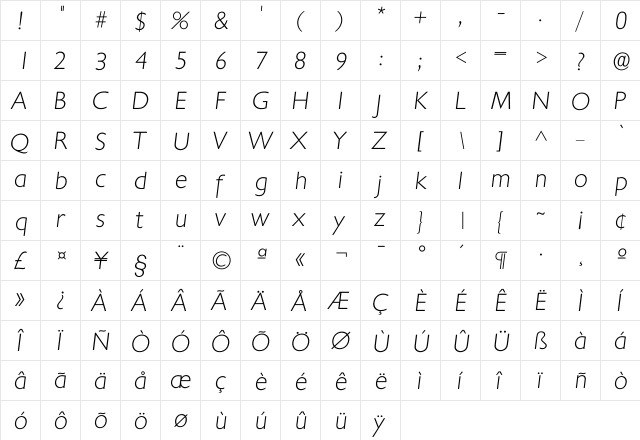
Ichantilly Xlight
Design Context for Ichantilly Typeface
Ichantilly offers clean, dependable letterforms without strong stylistic allegiance, making it a practical choice for designers who need flexibility. Its slender proportions lend an understated elegance to any composition.
Pro Tip: Pair Ichantilly with a font of contrasting weight or personality to build a more expressive typographic hierarchy.